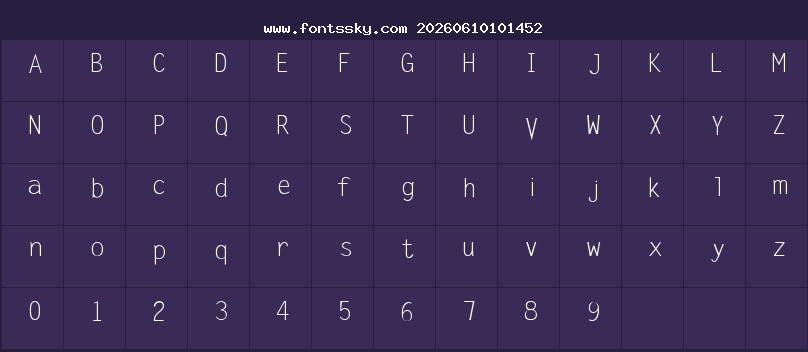
字体家AI造字春江 Preview
• Font Name: 字体家AI造字春江
• Full Font Name: 字体家AI造字春江
• Description: 由AI生成的字体
About 字体家AI造字春江.ttf
字体家AI造字春江.ttf is a modern, elegant sans-serif font designed for ultimate readability and visual harmony. Perfect for branding, headlines, web design, and print materials.